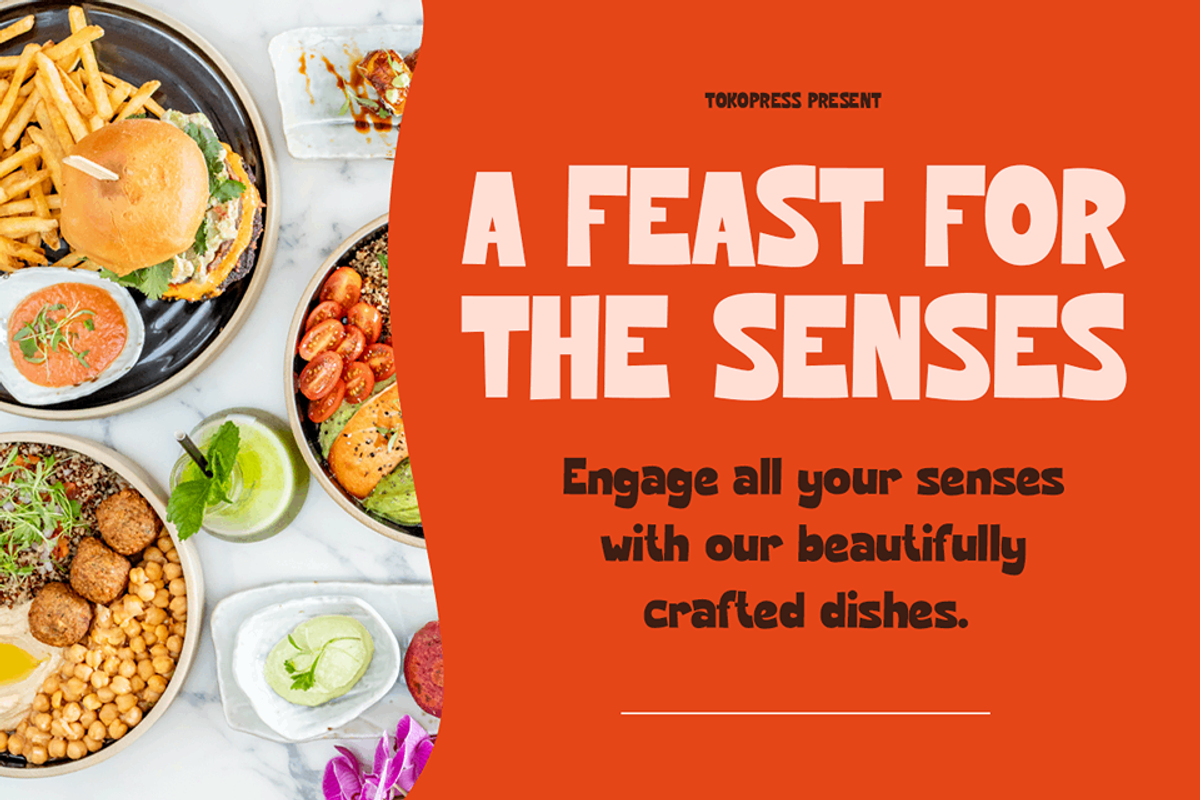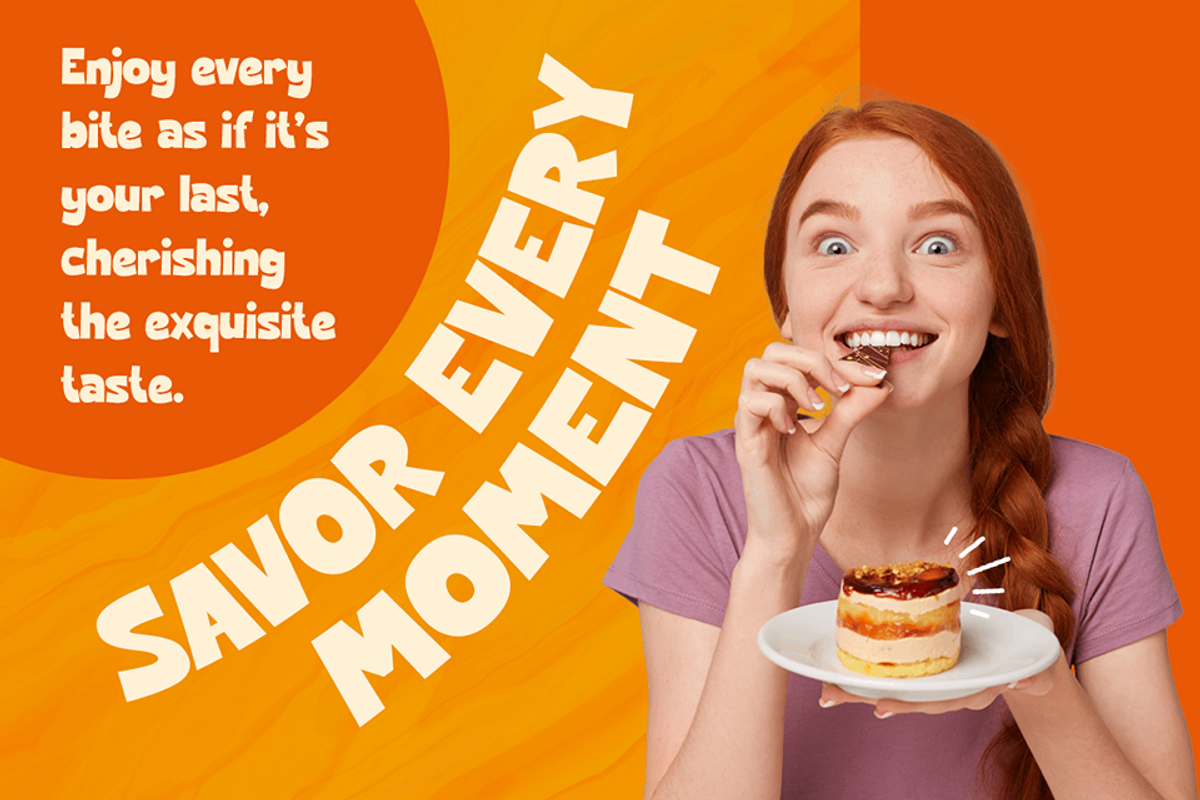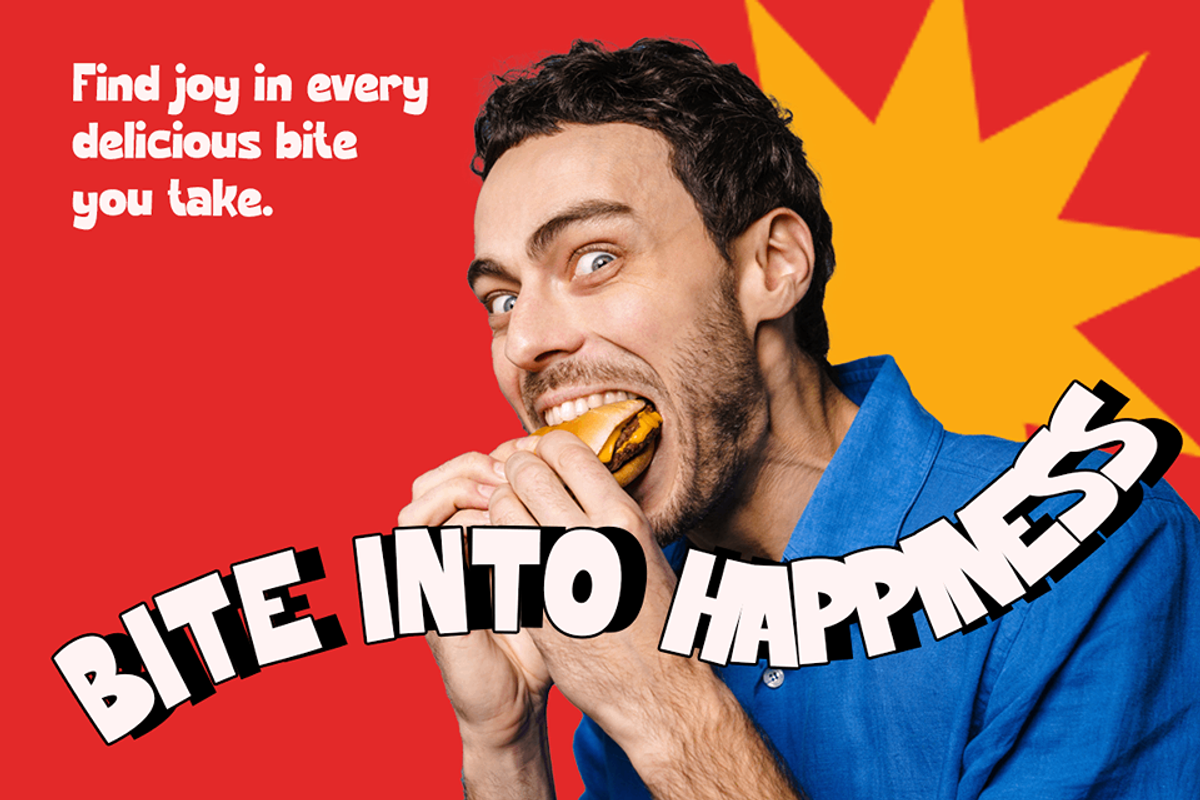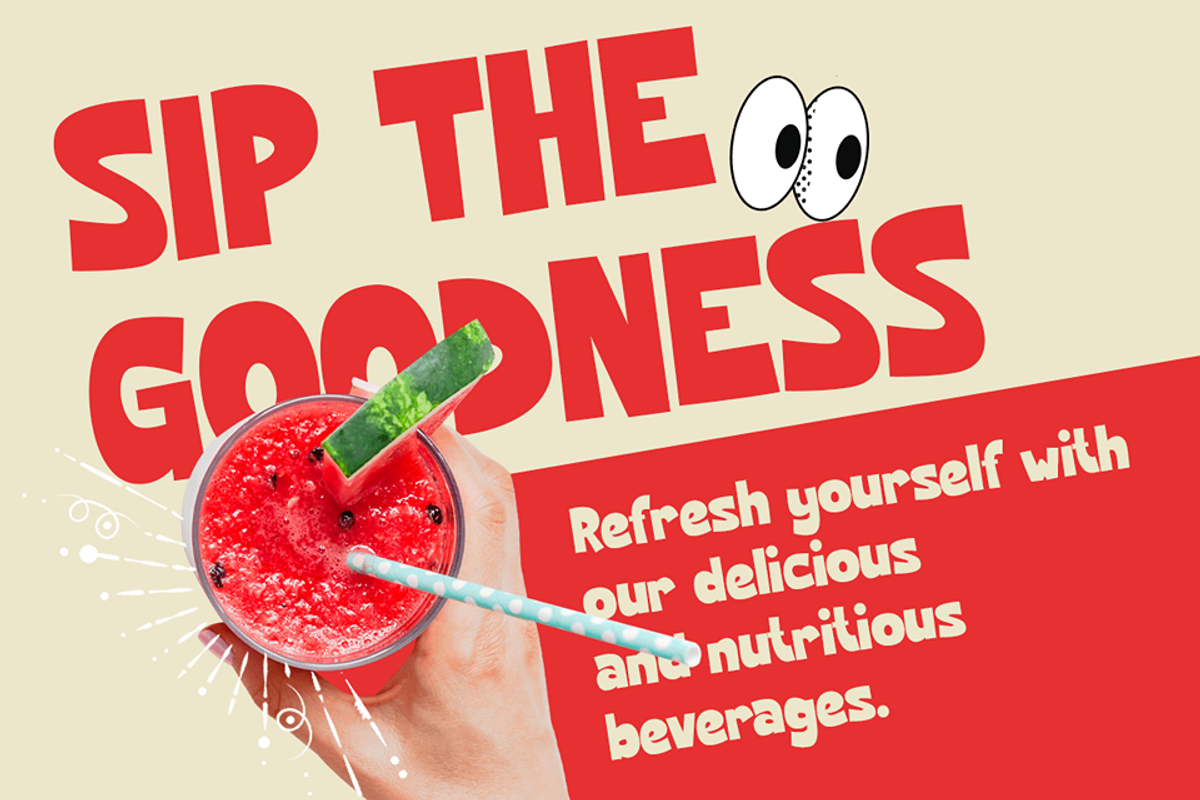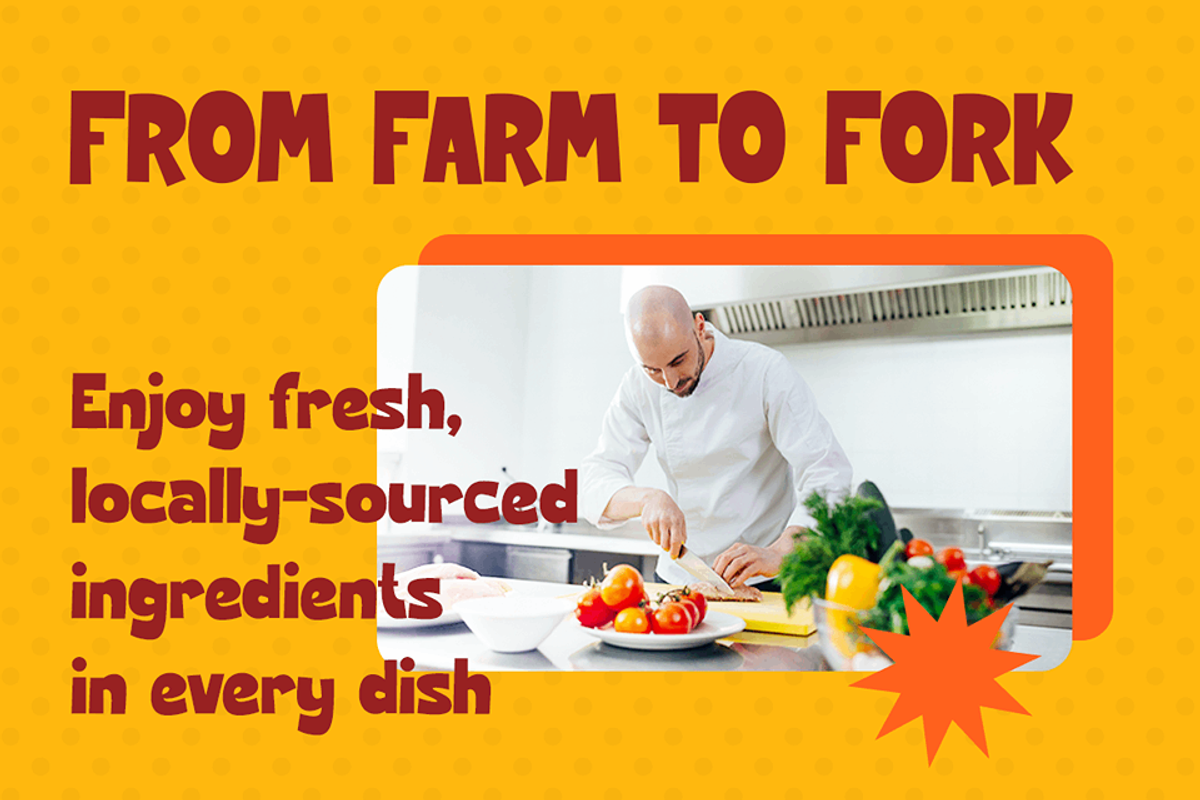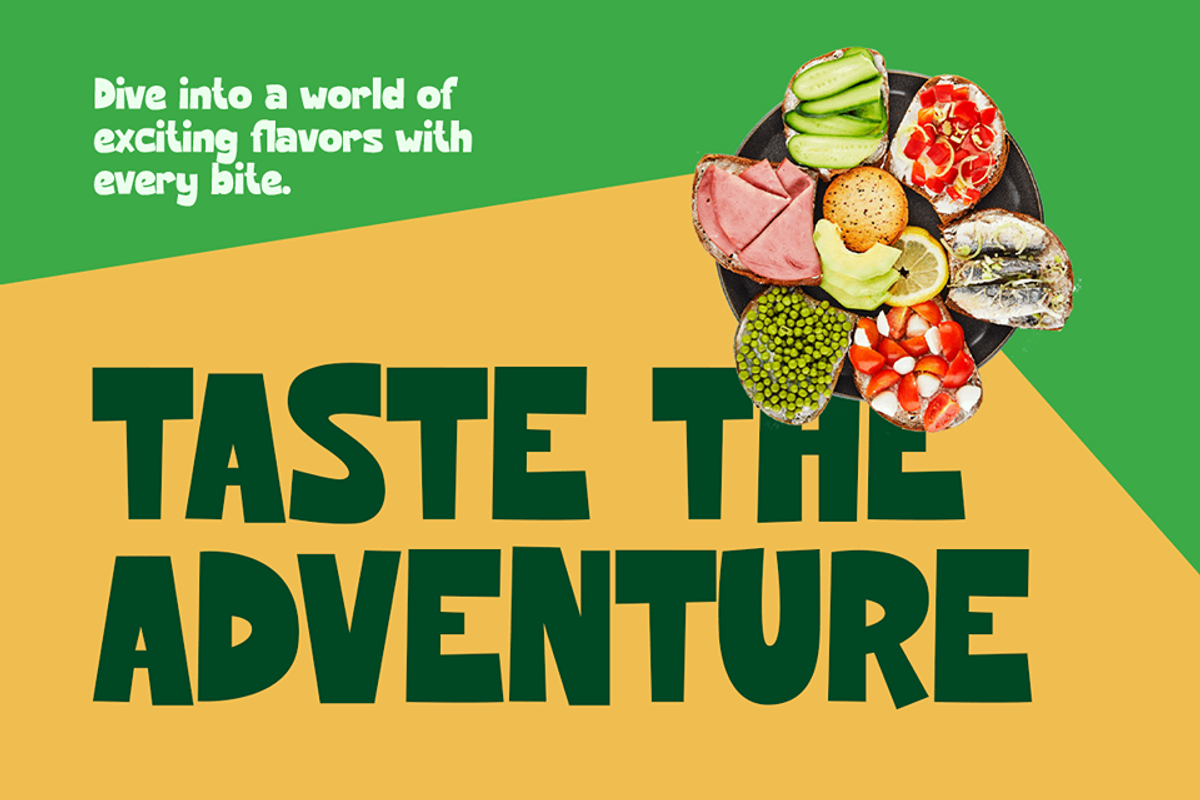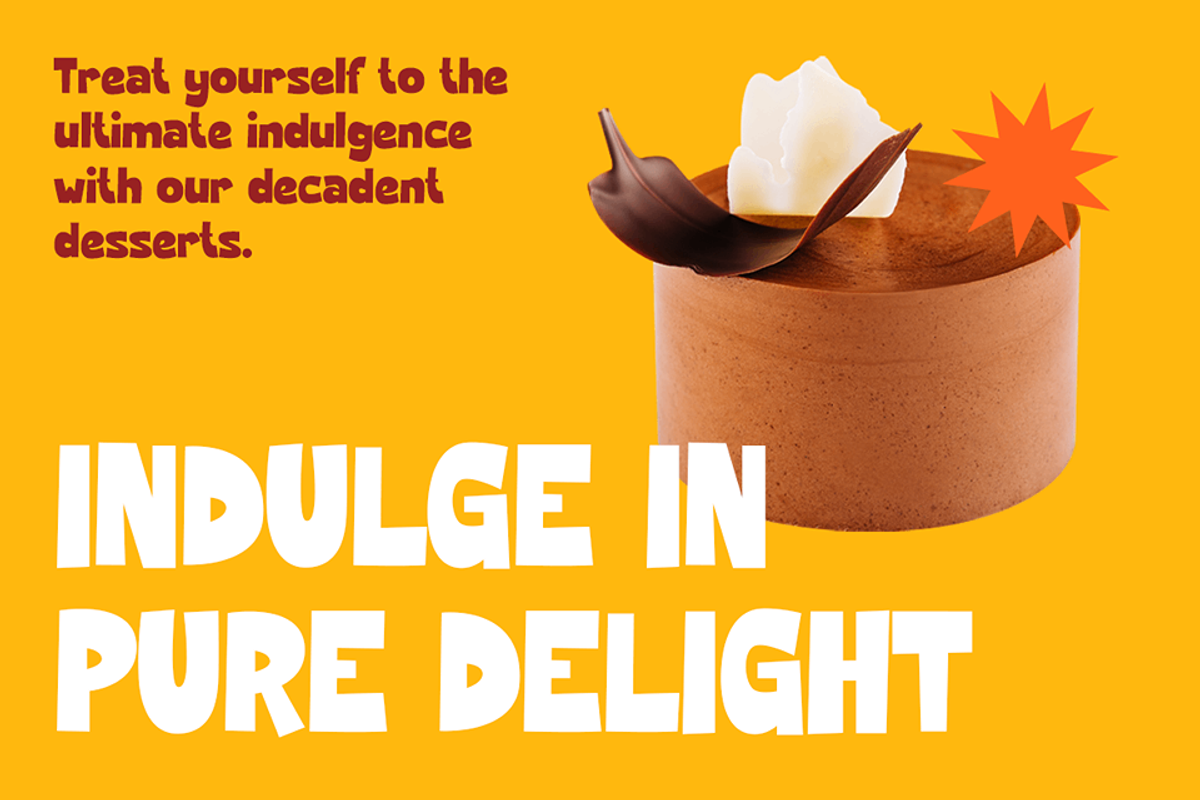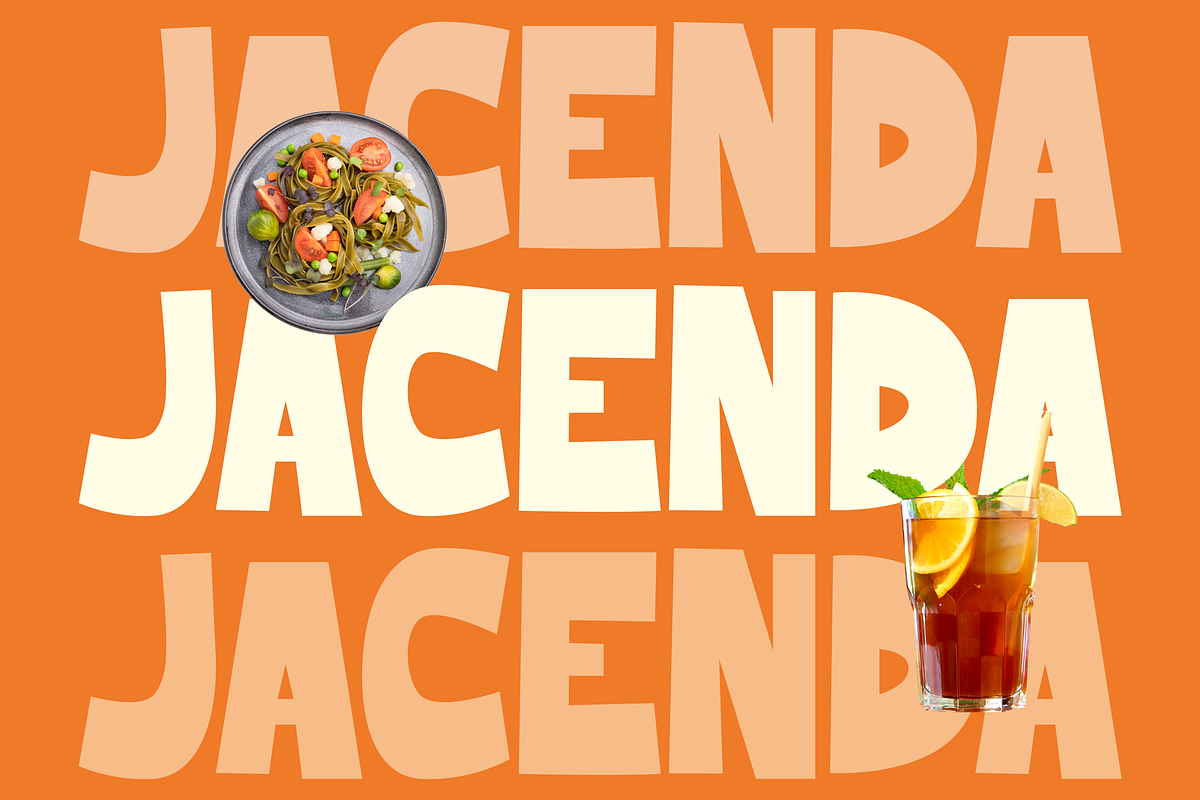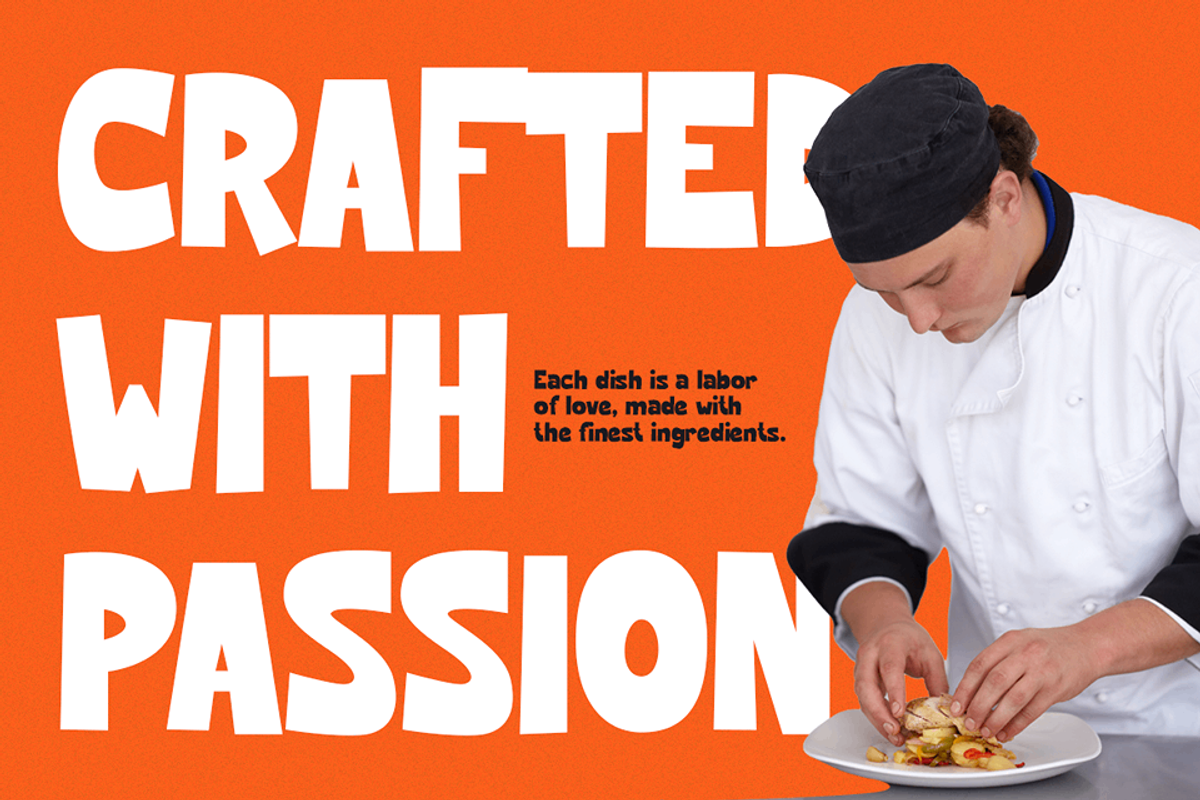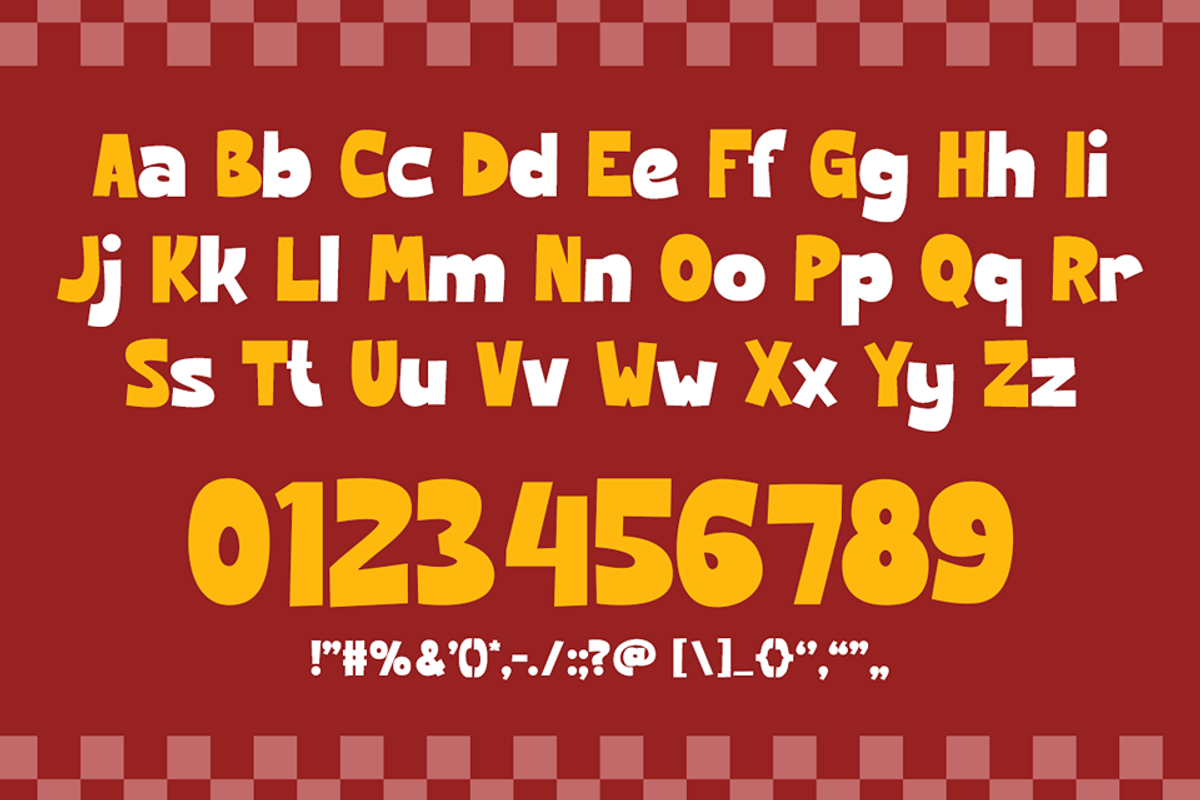
JACENDA
JACENDA - Unleash Bold Color and Creativity in Your Branding
Introducing JACENDA, the vibrant display font that transforms your branding into a visual masterpiece. Bursting with color and personality, JACENDA is designed to make a bold statement and capture attention effortlessly.
Its unique, eye-catching characters are perfect for logos, advertisements, and any project that demands a splash of creativity and flair. With JACENDA, your brand will stand out in a crowded market, radiating energy and modern sophistication.
Crafted to bring out the best in your designs, JACENDA combines playful charm with professional elegance. Each letter is meticulously designed to balance style with readability, ensuring your message is both striking and clear. Elevate your brand’s presence with JACENDA, where every character contributes to a memorable and impactful visual identity.